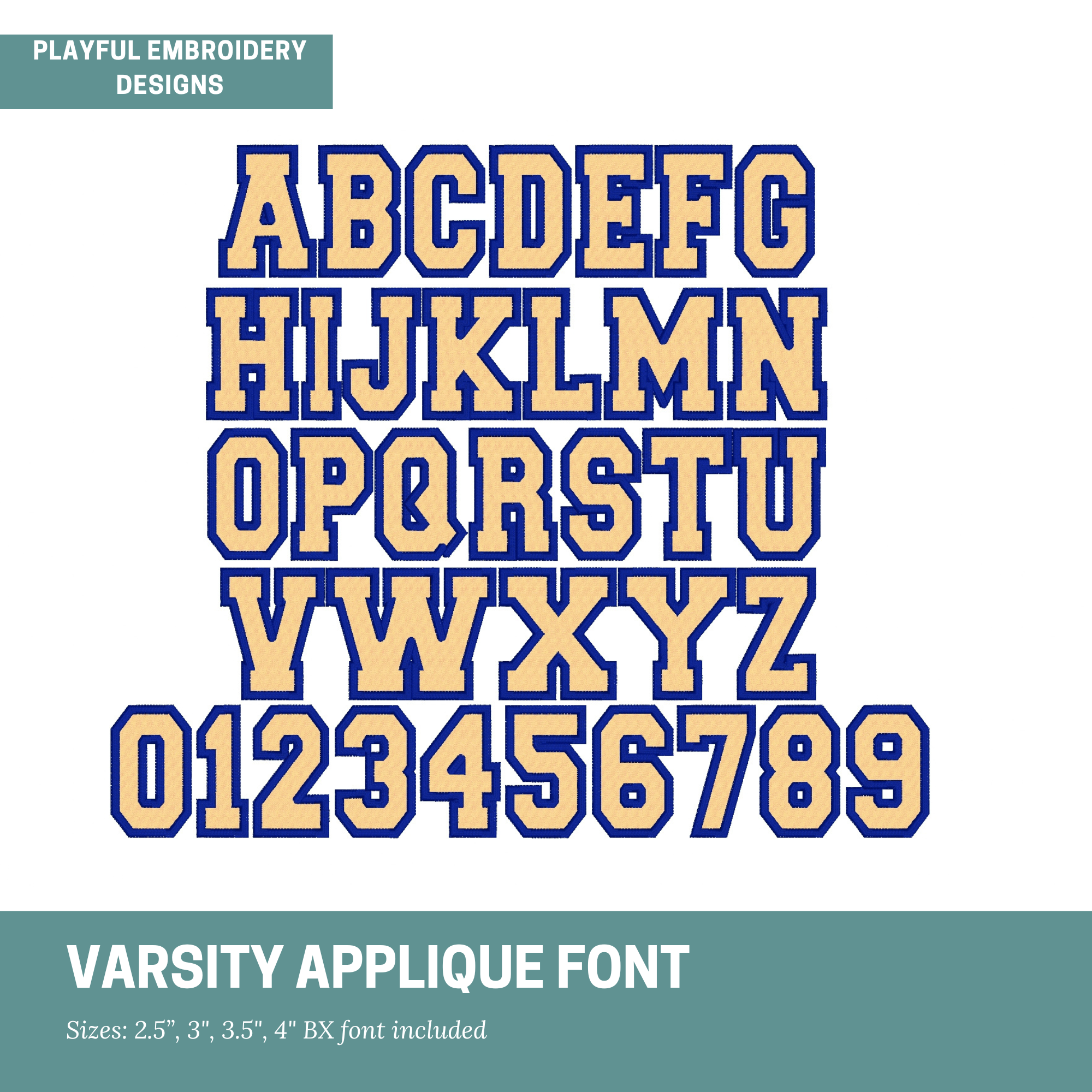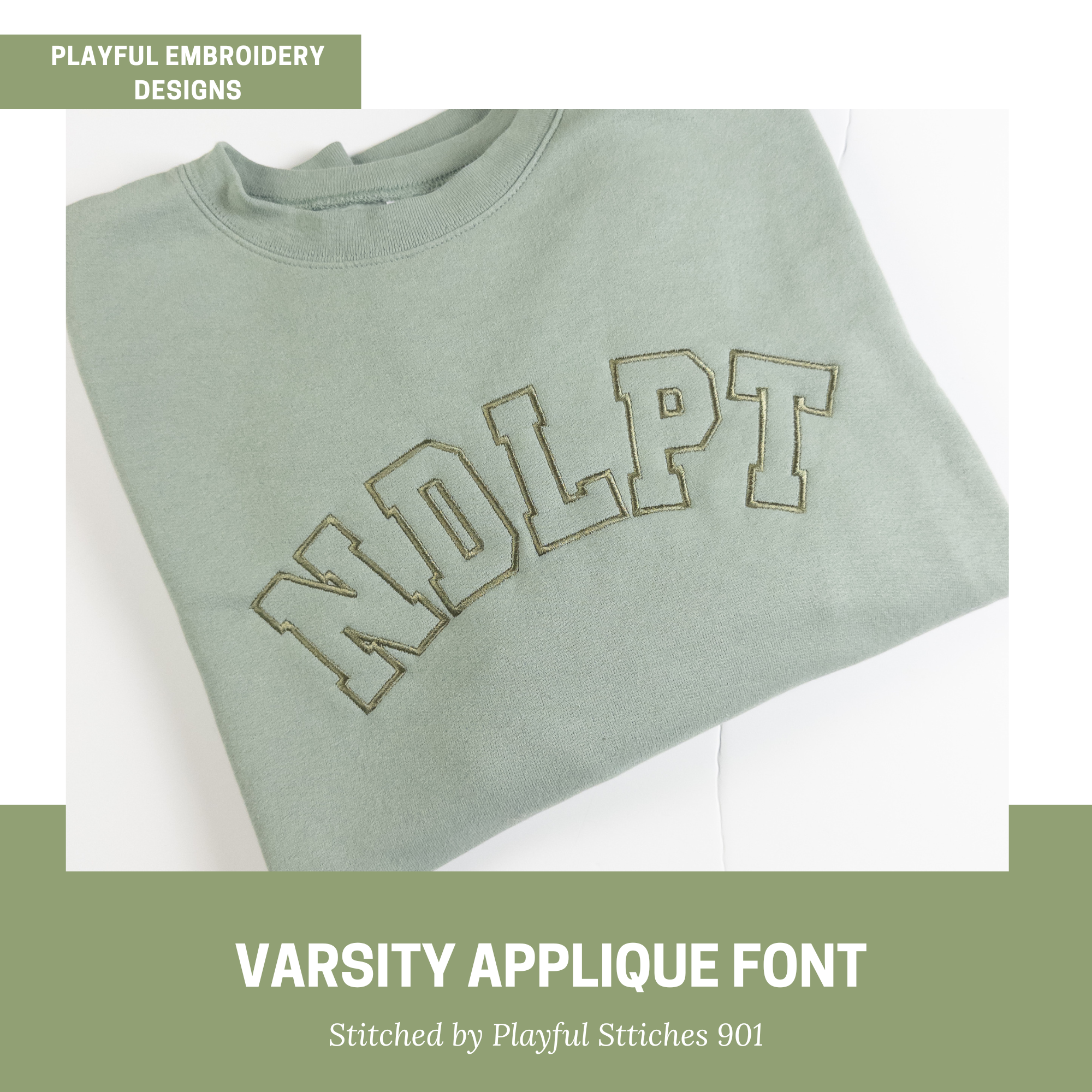
Varsity Satin Stitch Applique Font, Varsity Machine Embroidery Design (2.5-4 inch) (Digital Download)
Varsity satin stitch applique font for machine embroidery. Use as an applique or remove the first two steps and stitch it as a satin stitch outline, my favorite way.